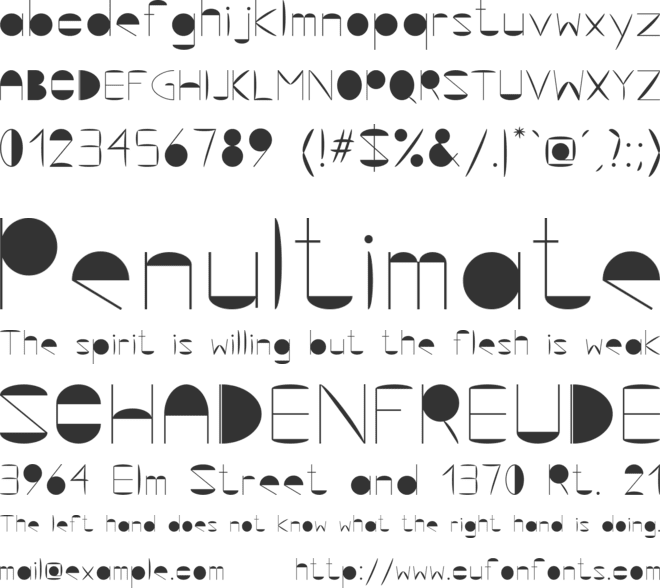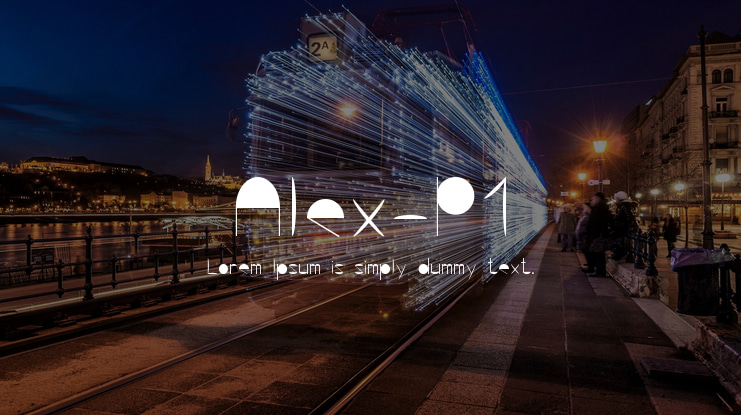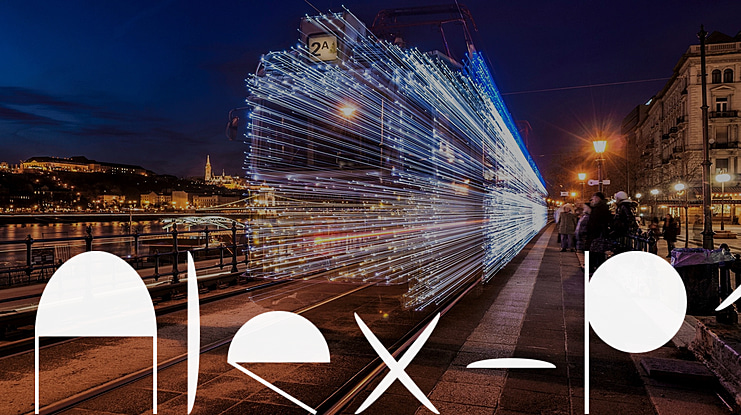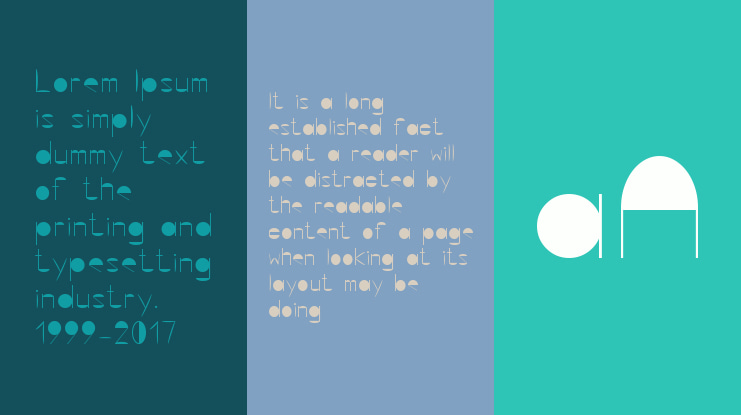
Alex-P1 Font
Alex P
Hi, my name is Alex P. I was born and live in Athens, Greece. "Alex P" is the nickname i use for my work. I am a web and graphic designer and I work mostly as a freelancer. This is my first font and is called "Alex-P1-Regular". It consists of lines and shapes and was created on 2020 with FontForge (https://fontforge.org). It is free to use it for also a personal or a commercial use. Please feel free to contact me and send me your comments at (). Also, if you are thinking to support my work by making a donation you are always welcome.